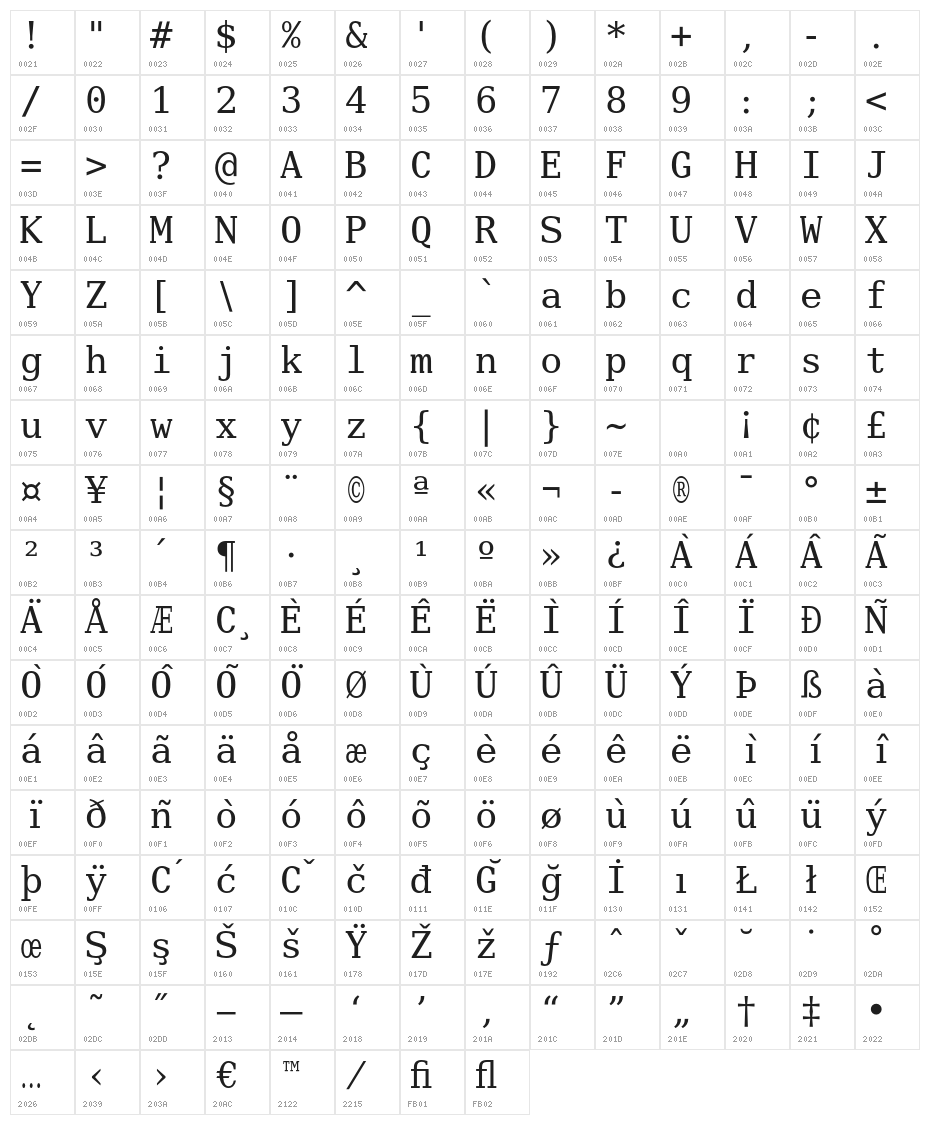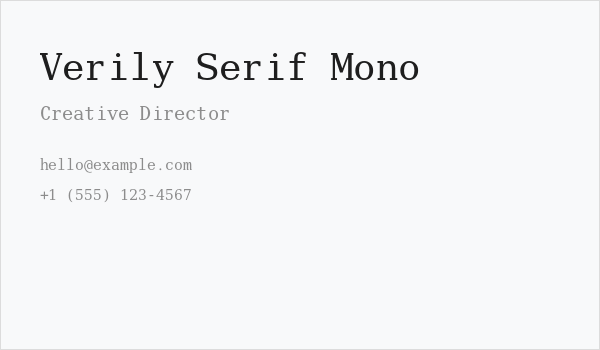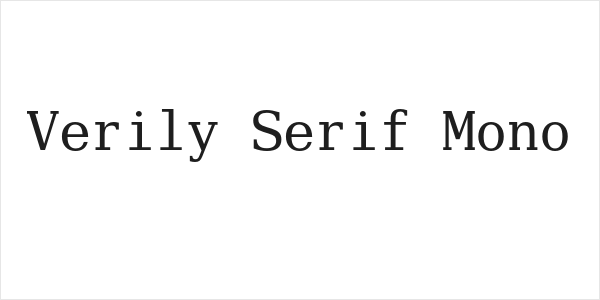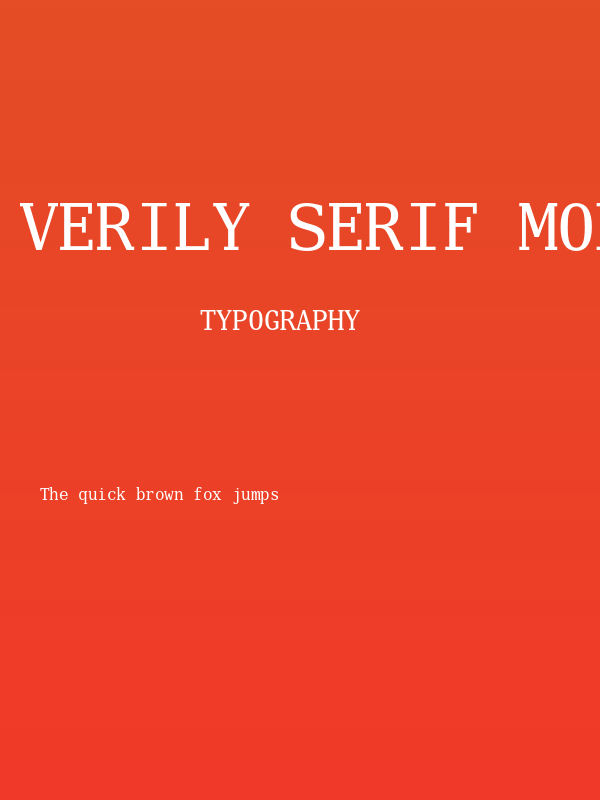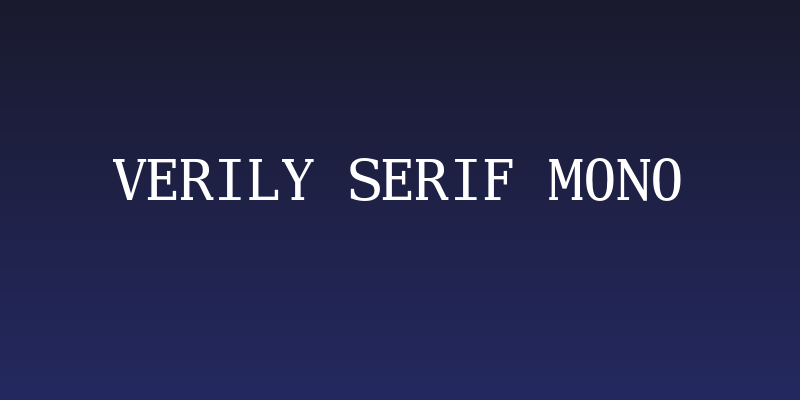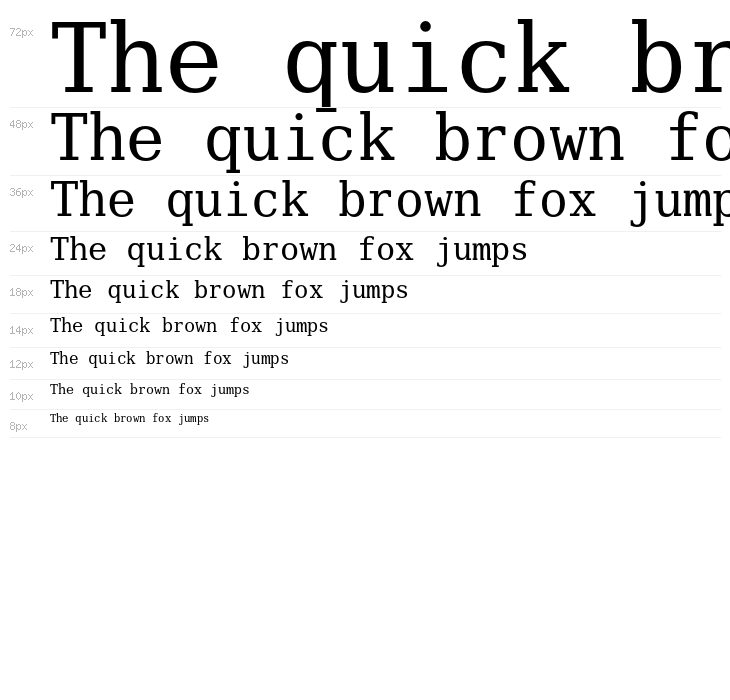
Verily Serif Mono Font
Verily Serif Mono Description
This font features a classic serif design with a monospaced structure, providing a balanced and uniform appearance across all characters. The serifs are pronounced yet refined, adding a touch of elegance to the overall look. Each character maintains equal width, which is characteristic of monospaced fonts, making it ideal for coding and tabular data. The font exhibits a medium contrast between thick and thin strokes, enhancing readability while maintaining a sophisticated aesthetic. Its clean lines and structured form make it versatile for various design applications.
| Use Case | Coding, Technical documentation, Tabular data |
| Proposed Projects | Ideal for coding environments, technical documentation, and any project requiring a structured and readable typeface. |